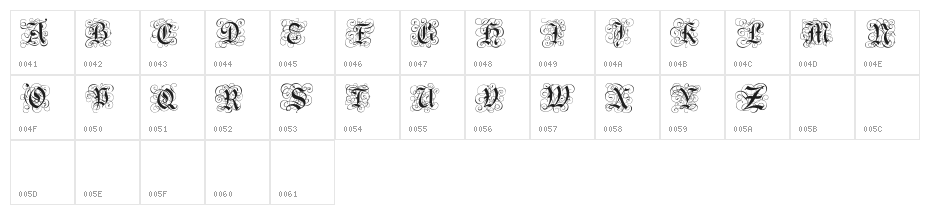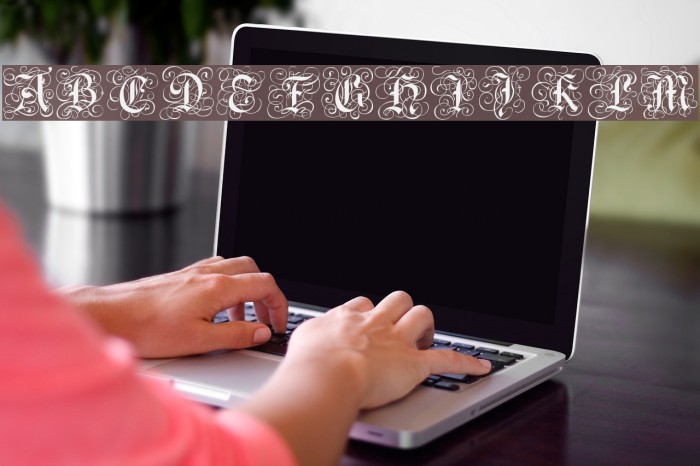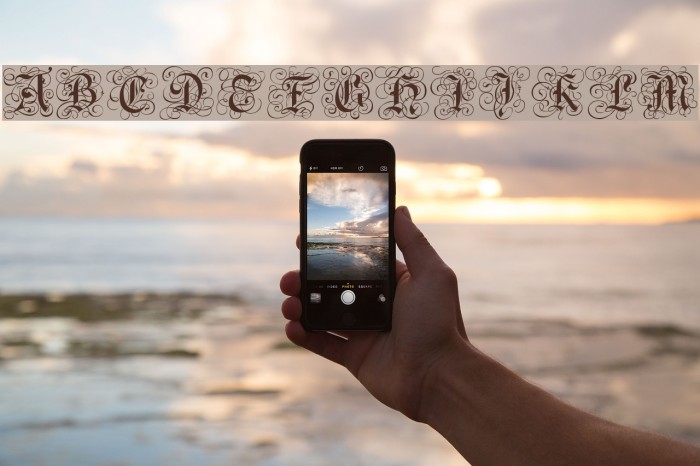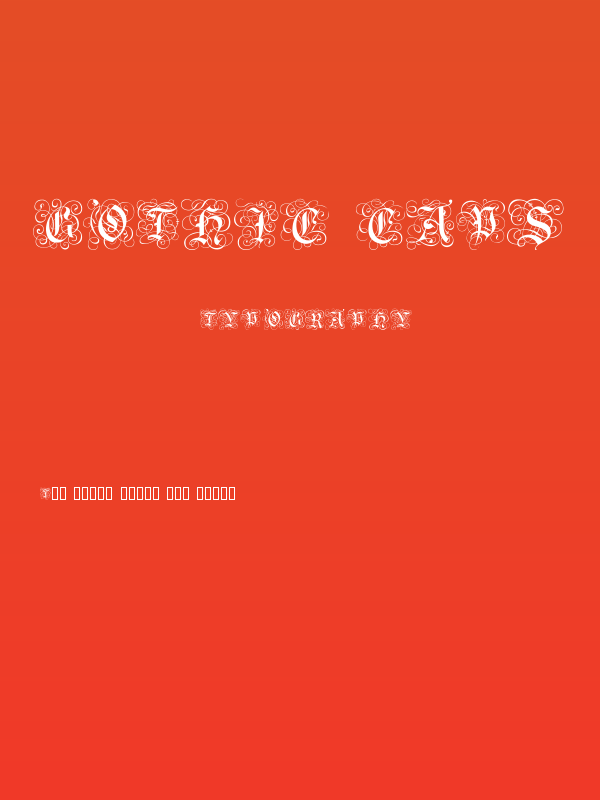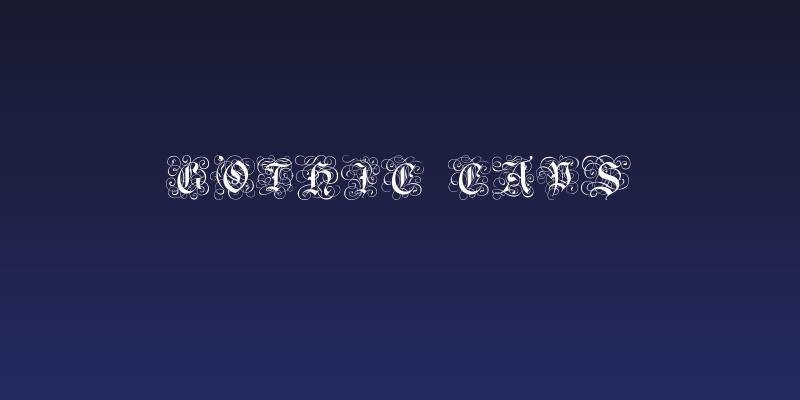
Gothic Caps Font
Gothic Caps Description
This font is an ornate and decorative typeface with intricate flourishes and embellishments. Each character is designed with elaborate swirls and loops, creating a highly stylized and artistic appearance. The font exudes a sense of elegance and sophistication, reminiscent of historical Gothic script styles. The detailed craftsmanship is evident in the complex patterns that adorn each letter, making it ideal for projects that require a touch of grandeur and formality.
| Proposed Projects | Ideal for wedding invitations, luxury branding, historical themed designs, and decorative headings. |